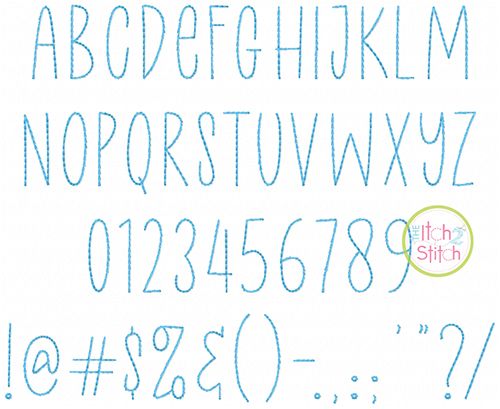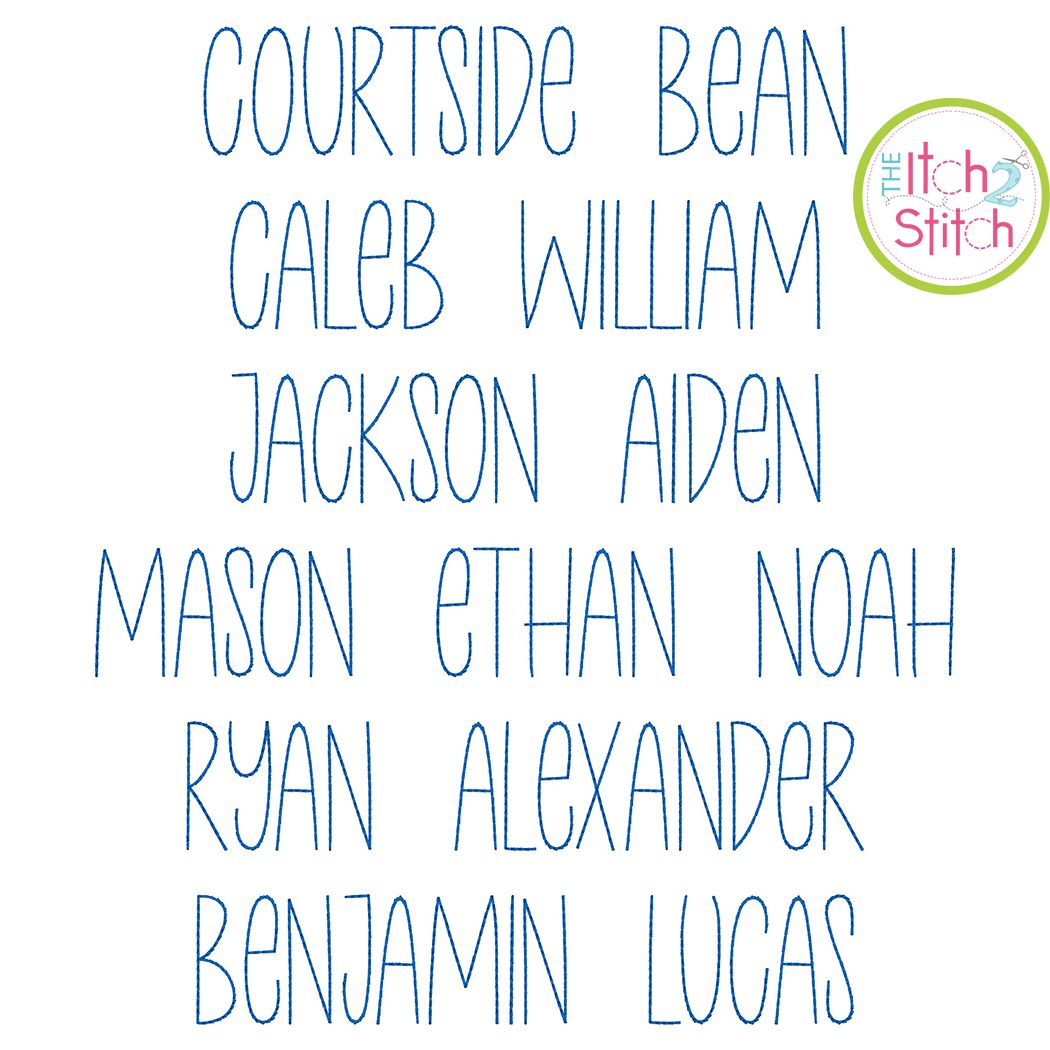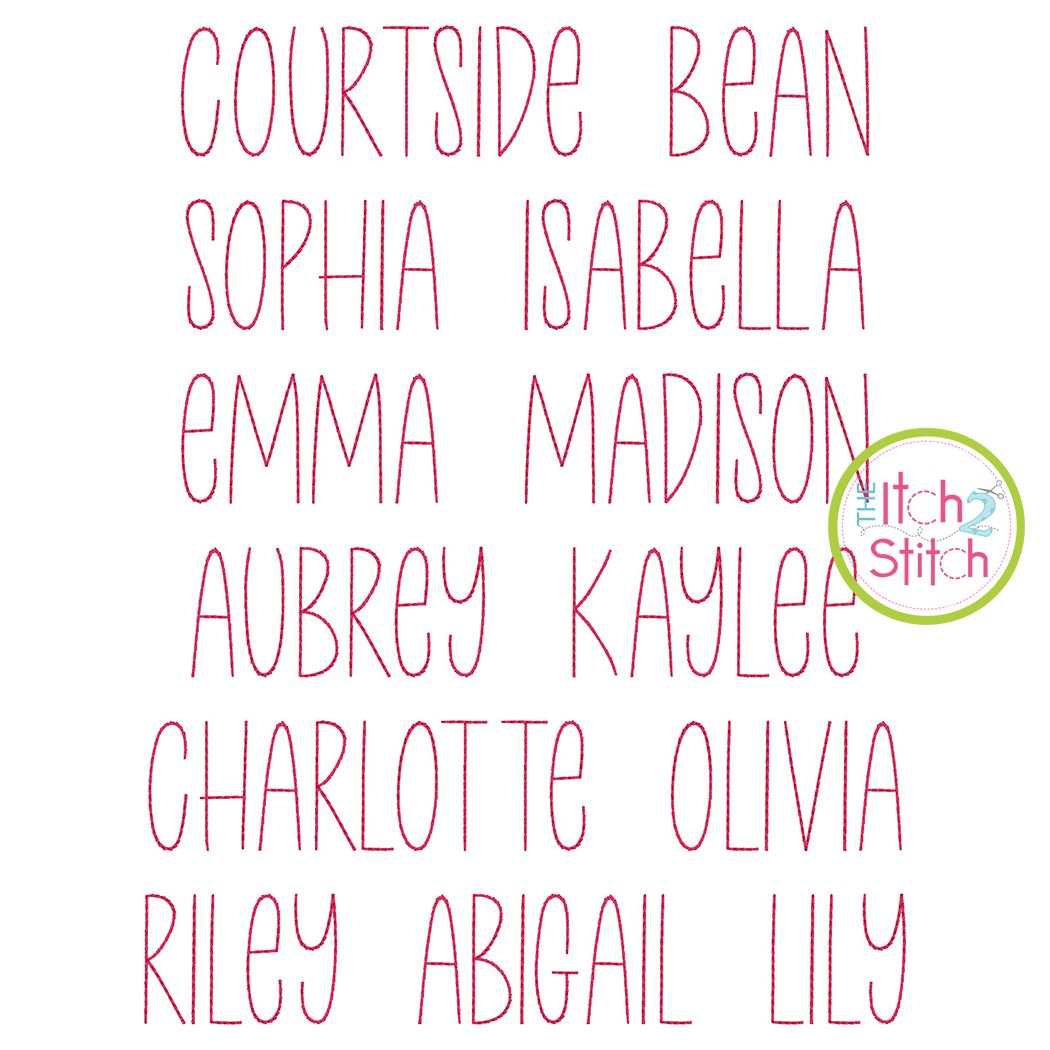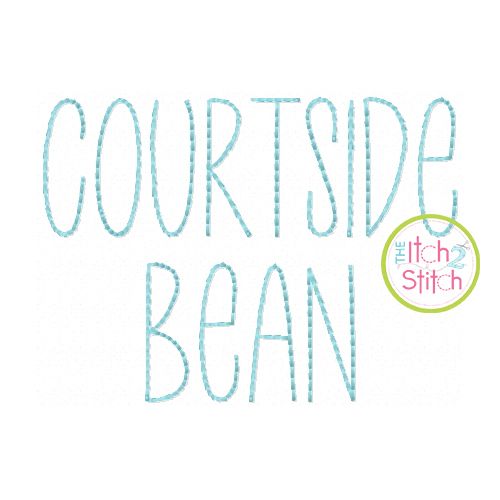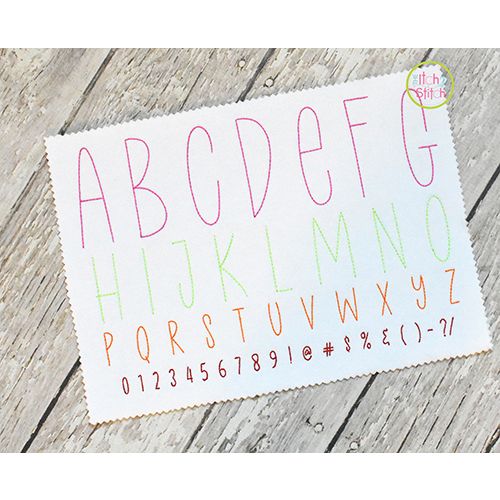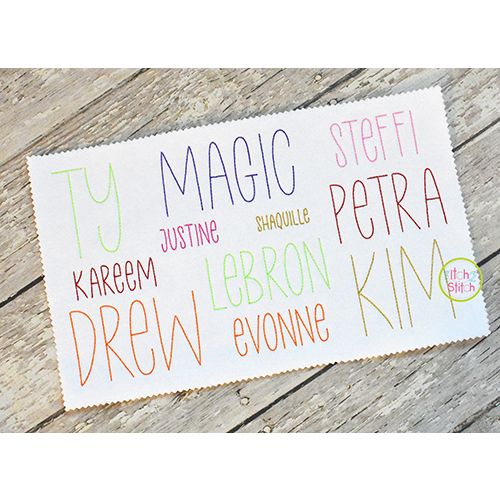
Courtside Bean Stitch Embroidery Font
You will receive all A-Z letters, numbers and partial punctuation (53 files) in eleven sizes. Please note this is a "unicase" font. There is only one design file for each letter of the alphabet. It is a mix of traditional capital and lowercase letters, as pictured.
This is a five-pass backstitch font originally designed to stitch on fabric, not card stock.